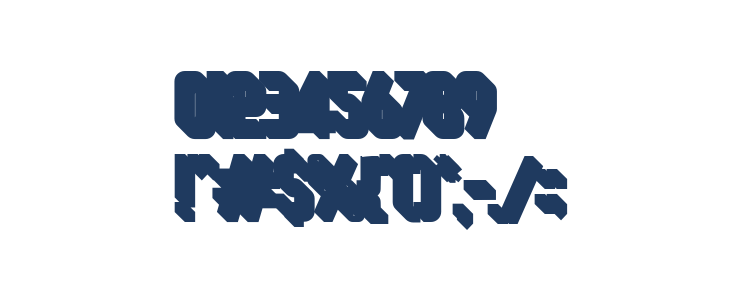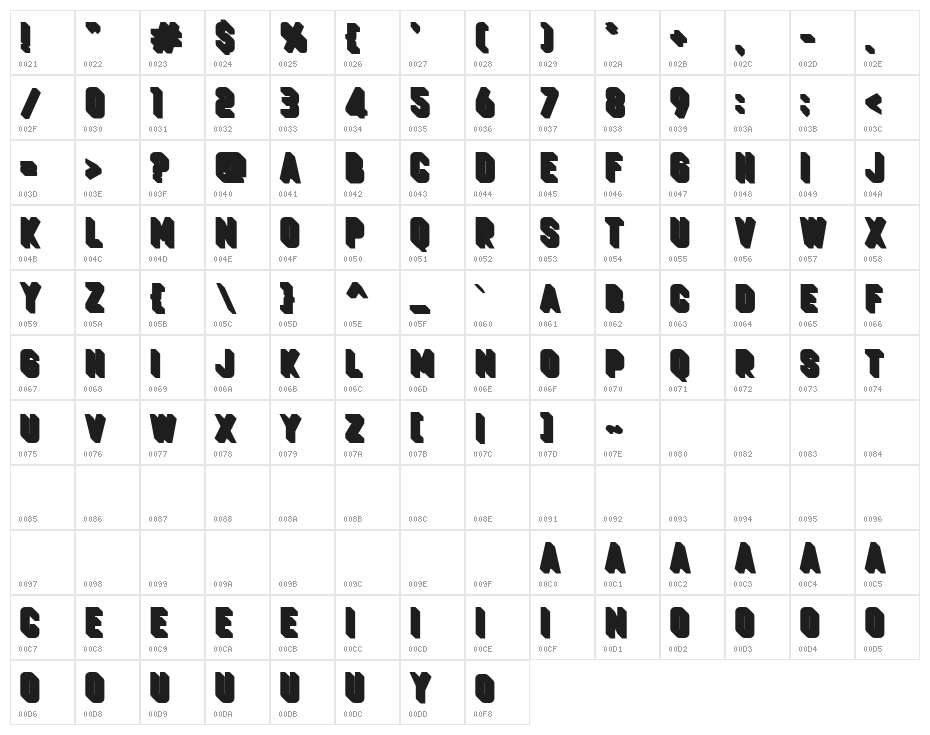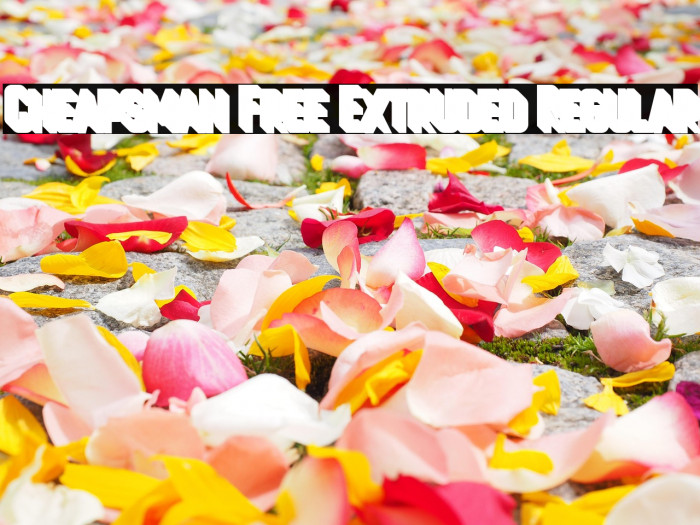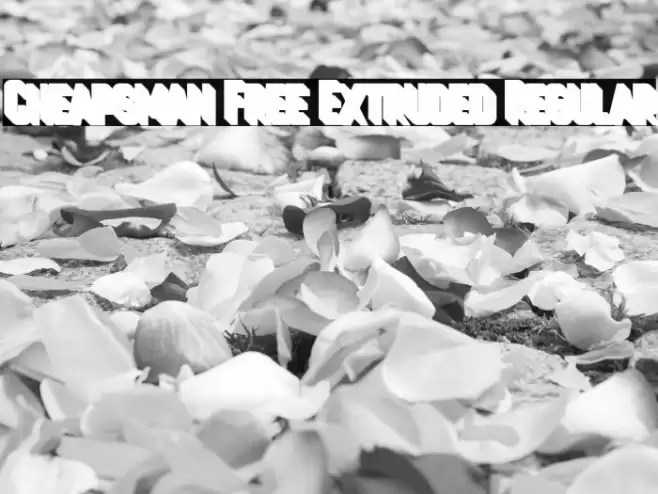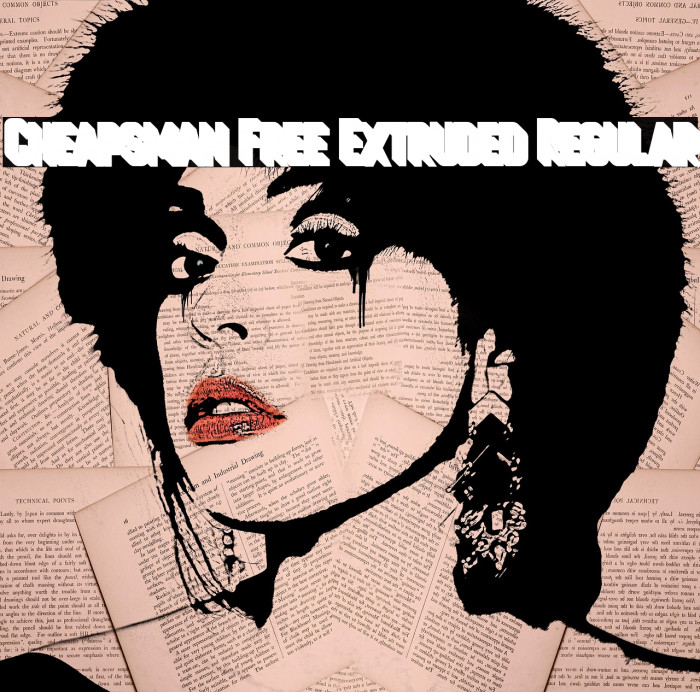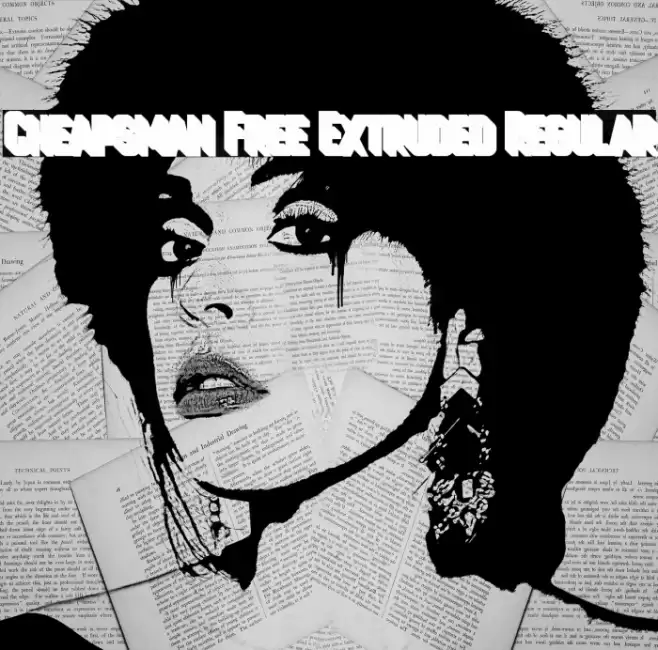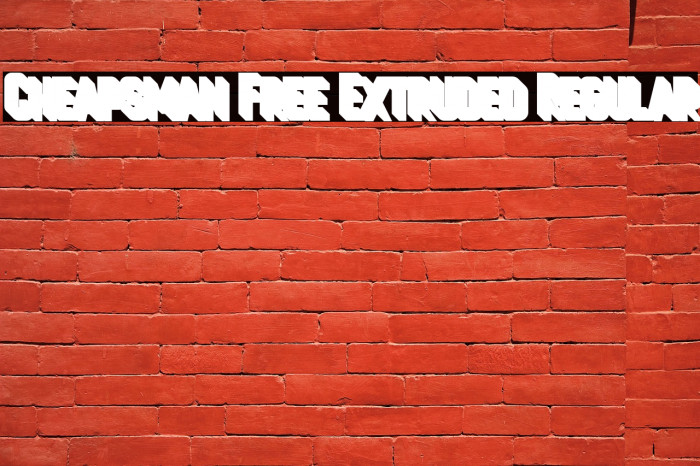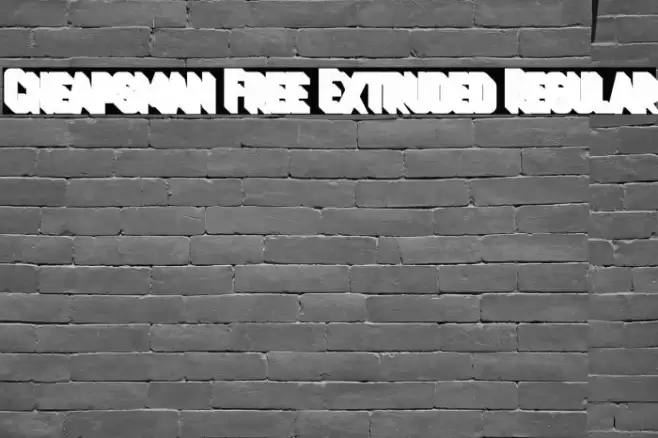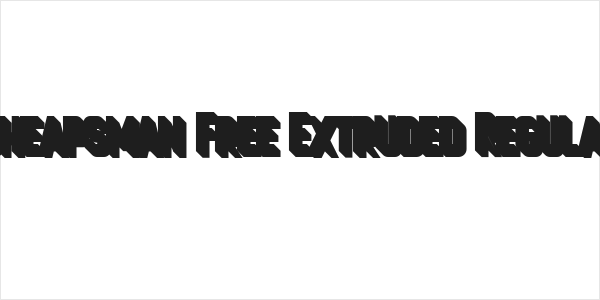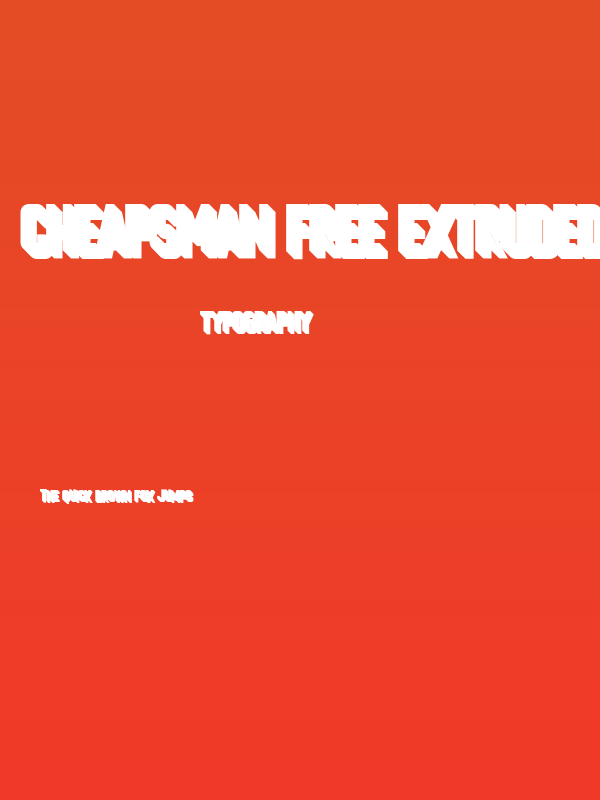
Cheapsman Free Extruded Regular Font
Cheapsman Free Extruded Regular Description
This font features a bold, extruded style with a strong three-dimensional effect. The characters are heavily weighted, creating a striking and impactful appearance. The design is geometric with sharp angles and clean lines, giving it a modern and industrial feel. The uppercase and lowercase letters maintain a consistent style, while the numbers and special characters are equally bold and prominent. This font is designed to stand out, making it ideal for attention-grabbing headlines or logos.
| Proposed Projects | Ideal for use in posters, logos, branding, and any project requiring a strong visual impact. |